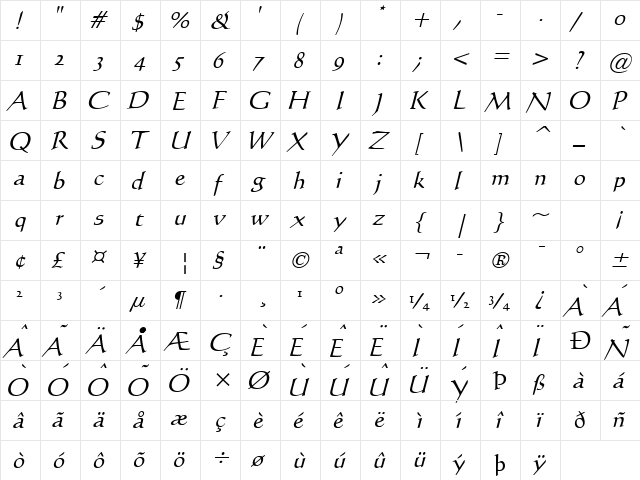
Calli 109 Italic
Design Context for Calli 109 Typeface
Calli 109 offers clean, dependable letterforms without strong stylistic allegiance, making it a practical choice for designers who need flexibility. The slanted form adds forward momentum and visual energy.
Pro Tip: Try Calli 109 for annotation and caption copy alongside an upright companion — the contrast in angle creates a dynamic but ordered typographic system.